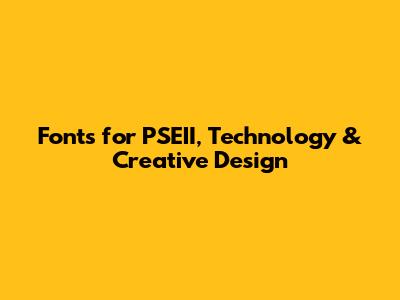
Hey guys! Ever found yourself staring at a blank screen, a creative project looming, and realizing you're missing that perfect font? We've all been there! Choosing the right font is like choosing the right outfit; it can totally make or break the vibe. Today, we're diving deep into the world of fonts, specifically focusing on how to find the ideal typography for projects related to PSEII, technology, and creative design. We'll explore where to snag some awesome fonts, how to make the best choices, and some key things to keep in mind to ensure your designs look amazing. Buckle up, because we're about to embark on a font-tastic journey!
Understanding the Importance of Font Selection
So, why is font selection such a big deal, anyway? Well, think about it this way: your font is one of the first things people see. It sets the tone, communicates your brand's personality, and guides the reader's eye. Imagine a sleek tech company using a Comic Sans font – yikes! Doesn't quite match the image, right? That’s why the PSEII (presumably related to a specific project, company, or field) needs to align its font choices with its identity, whether it's modern, innovative, or friendly. The right font can subtly influence how your audience perceives your message, making it more engaging and memorable. For tech and creative design, this becomes even more crucial. You want to showcase professionalism, clarity, and creativity. A well-chosen font can enhance readability, improve the user experience, and create a visually appealing design that grabs attention. Fonts, in essence, do more than just display words; they're integral parts of the message itself.
The psychology of fonts in design
Fonts carry a ton of psychological weight. They are far more than mere alphabets, guys! Different fonts evoke different emotions. Serif fonts, with their little decorative strokes (like Times New Roman), often feel traditional, reliable, and trustworthy. They are great for bodies of text where readability is paramount. On the other hand, sans-serif fonts, which lack these strokes (think Arial or Helvetica), appear modern, clean, and minimalist, perfect for technology and modern design. The subtle differences matter. It's like choosing between a classic suit and a sleek tech jacket – each communicates a different message. Script fonts can feel elegant and personal, but may not be the best option for long-form content because they can be tough to read. Then you have display fonts, which are more for headlines and attention-grabbing elements. The choices are endless, but they all affect your viewer. For projects related to PSEII and the tech world, clean, readable fonts are generally favored. This ensures that the information is easily accessible, especially when conveying complex ideas. In creative design, you have more freedom. You can use fonts to express personality and make a visual impact. In this case, experimentation and understanding are key. Consider your target audience and the message you want to convey. If you're building a brand identity or designing a website, the font choice will shape the entire user experience. Think about how each font feels. Does it project professionalism, innovation, or friendliness? Consider the typeface's weight, spacing, and size to ensure it enhances readability and appeal. Your font selection is an exercise in intentional communication. Your ability to leverage font psychology is essential to any kind of successful design.
Top Font Resources: Finding Your Perfect Match
Alright, let’s get down to the nitty-gritty: where do you actually find these fonts? Fortunately, the internet is overflowing with options, ranging from freebies to premium collections. For PSEII projects and tech-related design, you’ll want to explore a few specific resources. Here are some of the best places to look:
Google Fonts: Your go-to source
Google Fonts is a total goldmine. It's completely free, and it has a huge library of fonts optimized for web use. That means they load fast, look good on any device, and are easy to integrate into your projects. You’ll find tons of great sans-serif options here that are perfect for technology and modern design. What's awesome is that it's super easy to use; you can browse by category, check out the font pairings, and download exactly what you need. Best of all, it's open-source, which means you have the freedom to use these fonts for any project. If you're starting out, Google Fonts is absolutely the perfect place to begin.
DaFont: The classic font haven
Then, there's DaFont. This is one of the OG font websites. It's known for its huge selection of free fonts, spanning all sorts of styles – from basic to super creative. You’ll find everything from elegant scripts to quirky display fonts. The selection is vast, and a lot of the fonts are free for personal use. But a heads-up: make sure you check the license for commercial use. Some fonts may require a paid license if you're using them in a business or project. DaFont is a great starting point for those looking for something outside of the mainstream. It’s a great place to discover fonts you won't find on more standard sites like Google Fonts. I’m telling you, it's worth a look if you're looking for that unique font.
Font Squirrel: Quality fonts, licensed properly
Font Squirrel is another fantastic resource, focusing on providing high-quality, free fonts. What makes it stand out is its commitment to licensing. All the fonts are either free for commercial use or have clear information about the licensing terms. You won't have to wade through complicated licensing agreements. Font Squirrel also offers a font identifier tool, so you can upload an image of a font you like and it will try to match it. That's super handy. It's a great choice for those who want to be certain about legal usage and ensure compliance with licensing agreements, especially if you're working on projects for PSEII or any professional context. The selection might be smaller than some other sites, but the focus on quality and licensing makes it a reliable choice.
Premium options: Exploring the paid market
If you have a budget to work with, it’s worth considering premium font resources. Sites like MyFonts, Adobe Fonts (if you have an Adobe Creative Cloud subscription), and Creative Market offer a wide array of high-quality fonts designed by professional designers. These fonts often come with more comprehensive licensing options and greater design flexibility. In the world of technology and creative design, this can provide an edge, as you get fonts that are built to look amazing and perform flawlessly. While the initial cost may seem daunting, the investment can pay off in a polished and professional design. Premium fonts can bring a unique aesthetic to your work and elevate your brand image. Do some research, compare your needs, and see what the advantages are for you! The difference can be really noticeable and can take your designs to the next level.
Key Considerations for Font Selection in PSEII, Tech, and Design
Now that you know where to find fonts, let’s talk about how to choose them. This is where the magic happens! When selecting fonts for PSEII, tech, and creative design projects, consider the following:
Readability is king: Prioritizing ease of use
First and foremost: readability. The font needs to be easy to read, especially in any long-form content. Tech and design often involve communicating complex ideas, so you need a font that doesn't get in the way of the message. Avoid fonts that are overly ornate or difficult to decipher. Sans-serif fonts are generally a safe bet for tech because they are clean and modern. Make sure to test your font at different sizes and weights to see how it performs in various contexts. Remember, your audience has to understand what they're reading. The content is key, and the font is just there to support it. If your audience is struggling to read your content because of the font choice, you’ve failed. So, keep it clear, simple, and readable!
Font pairing: Choosing harmonious fonts